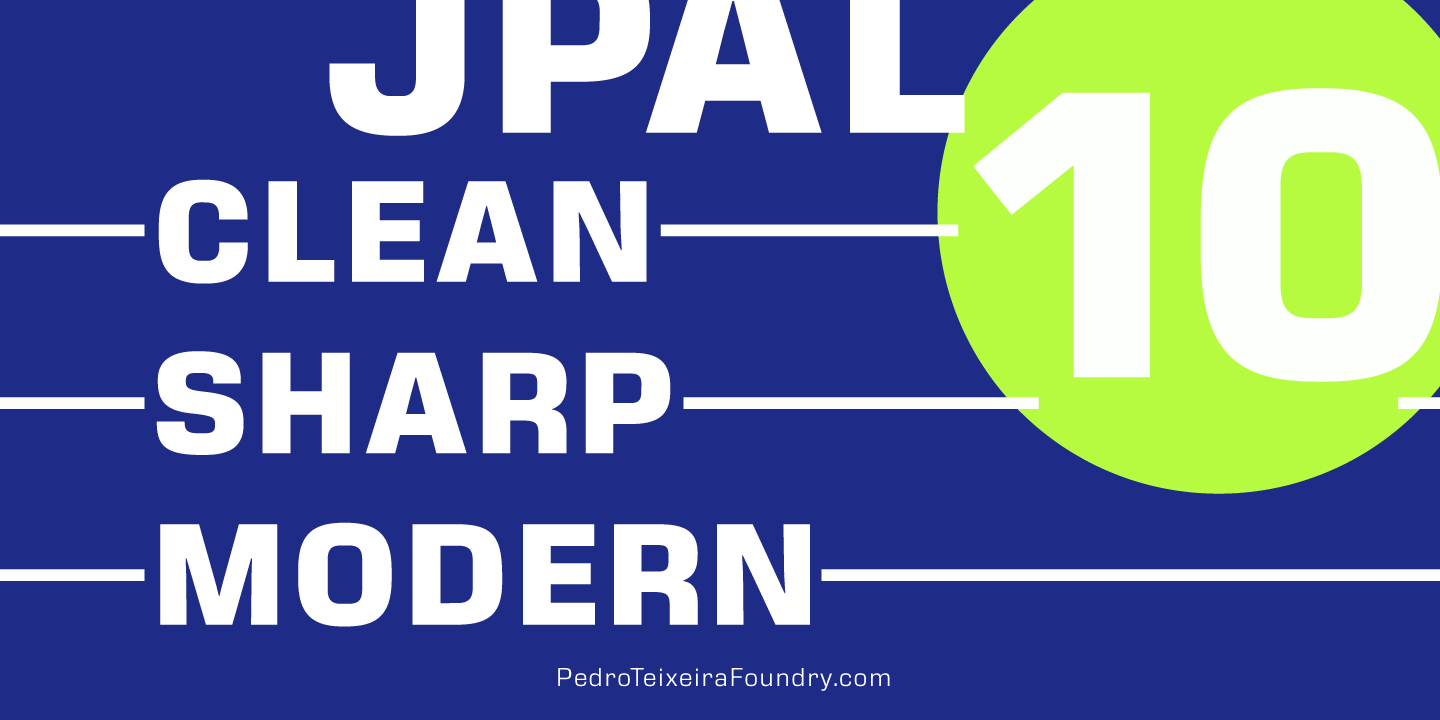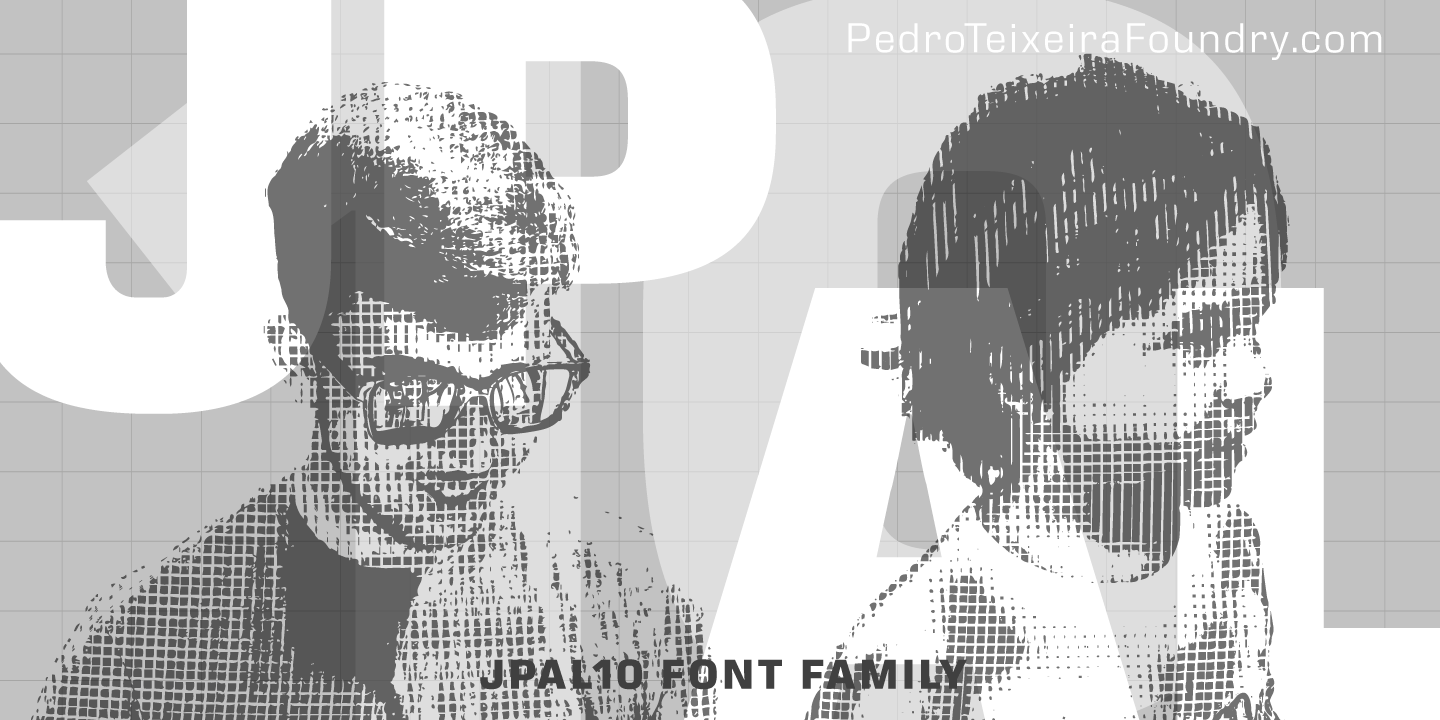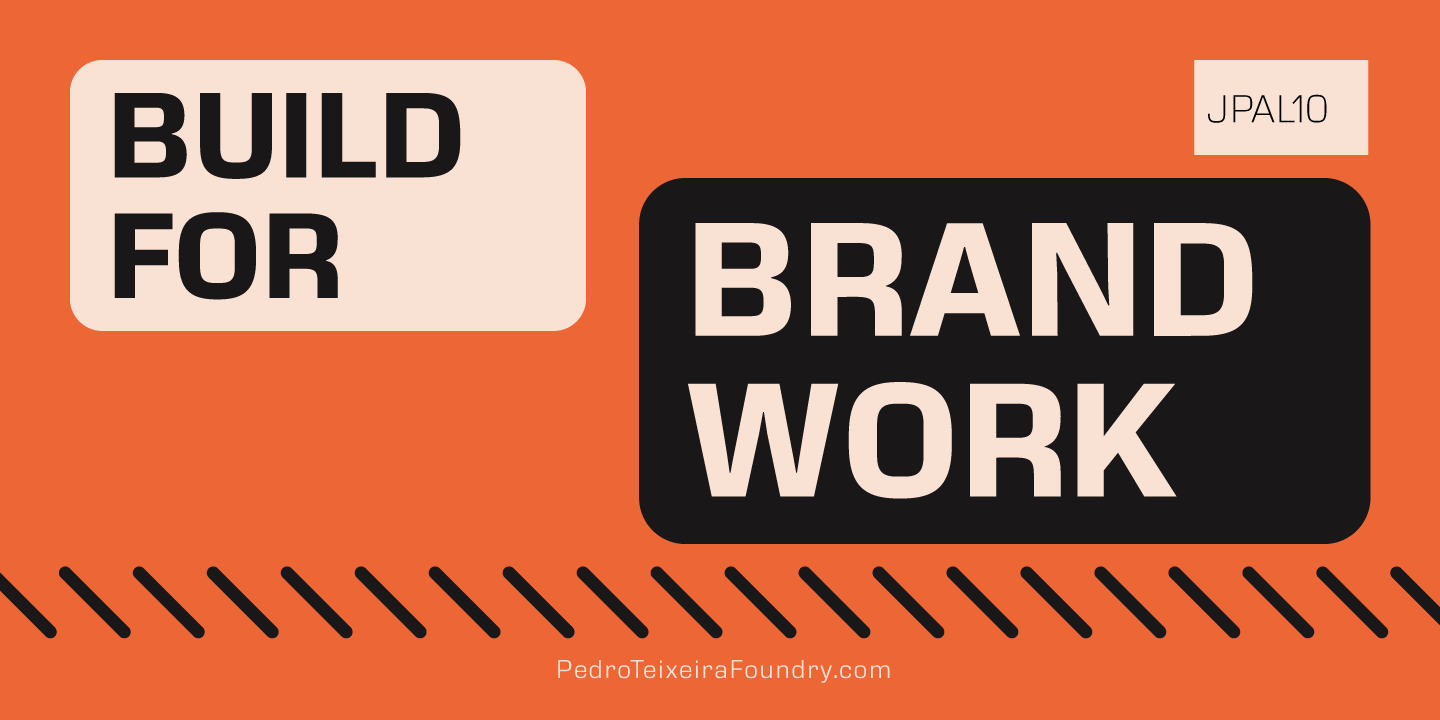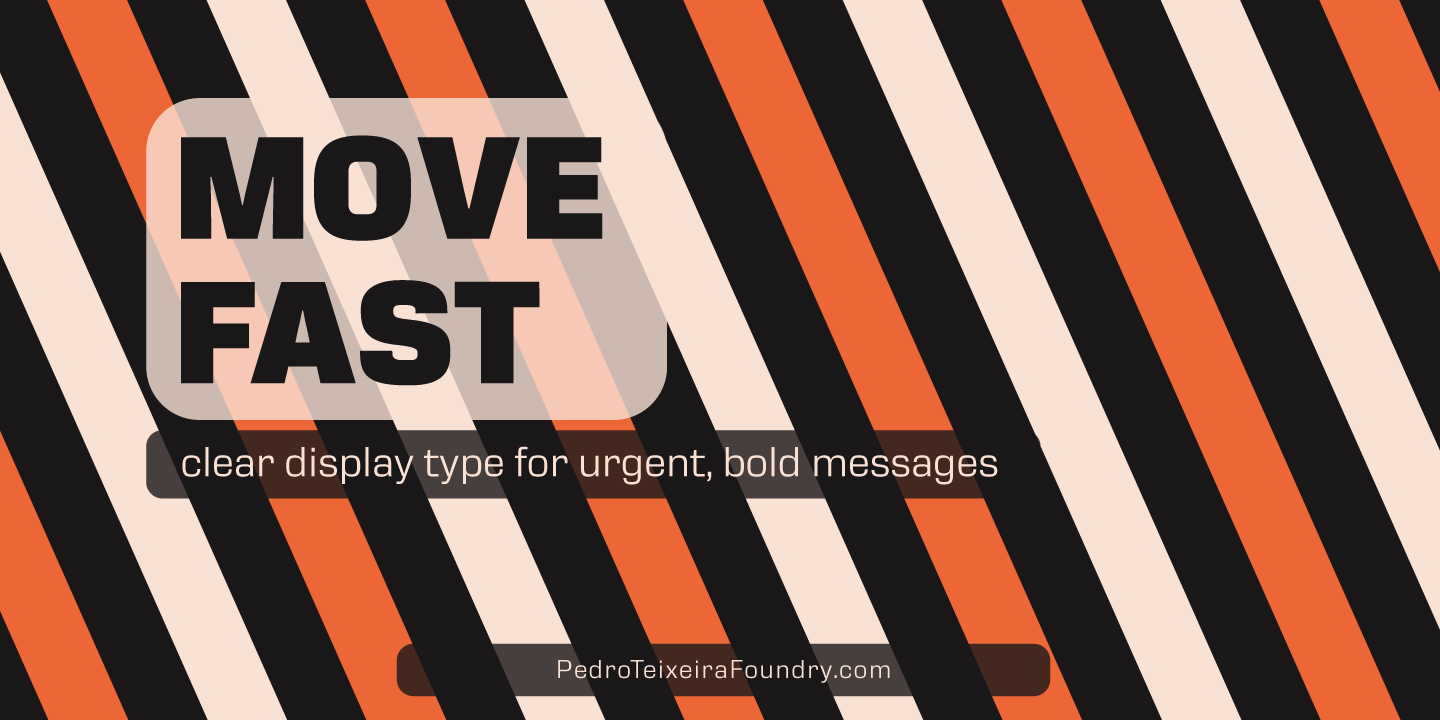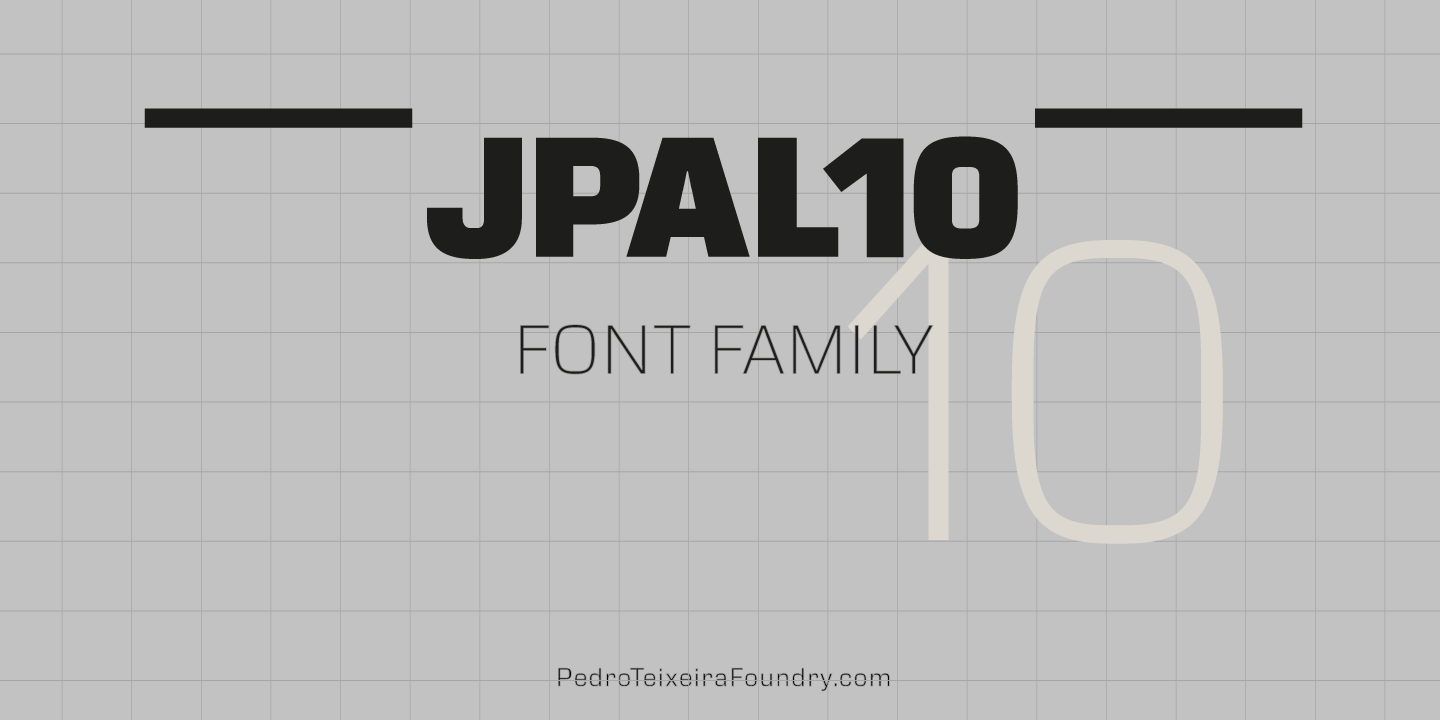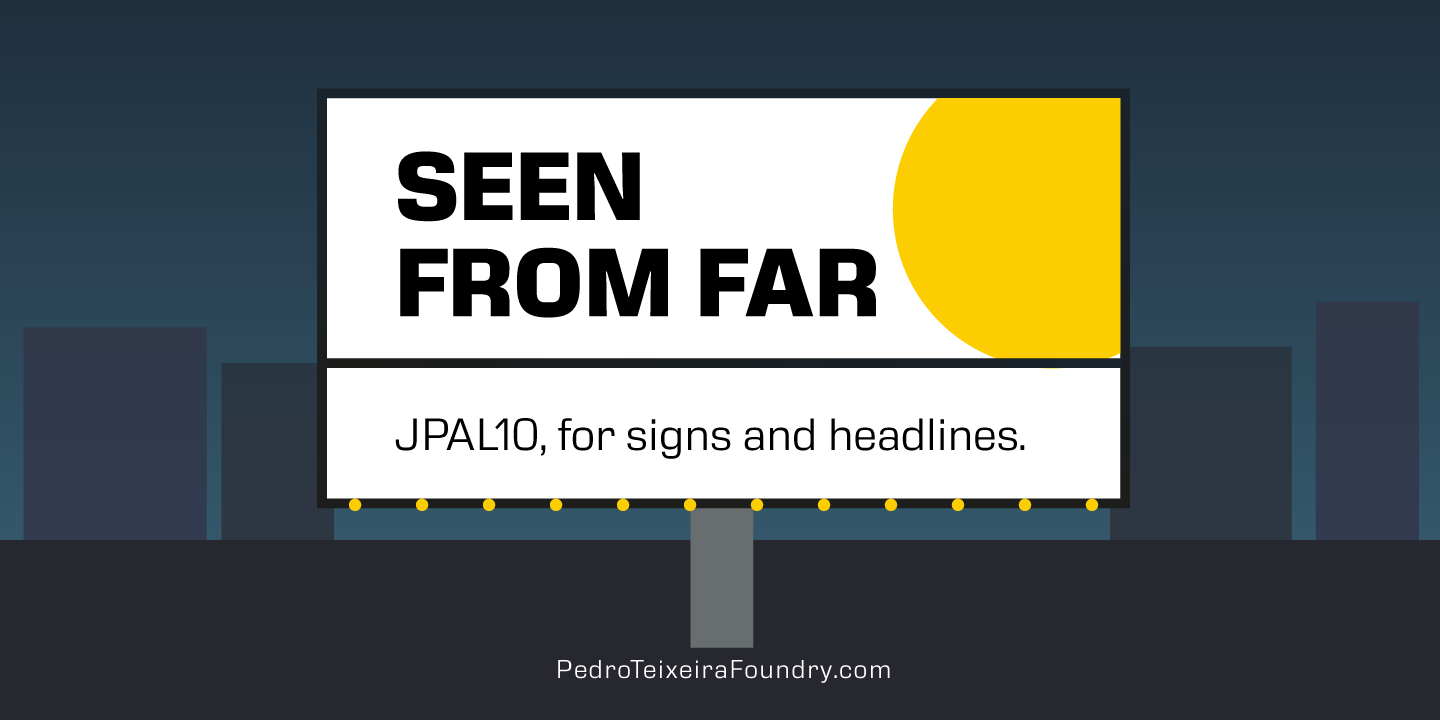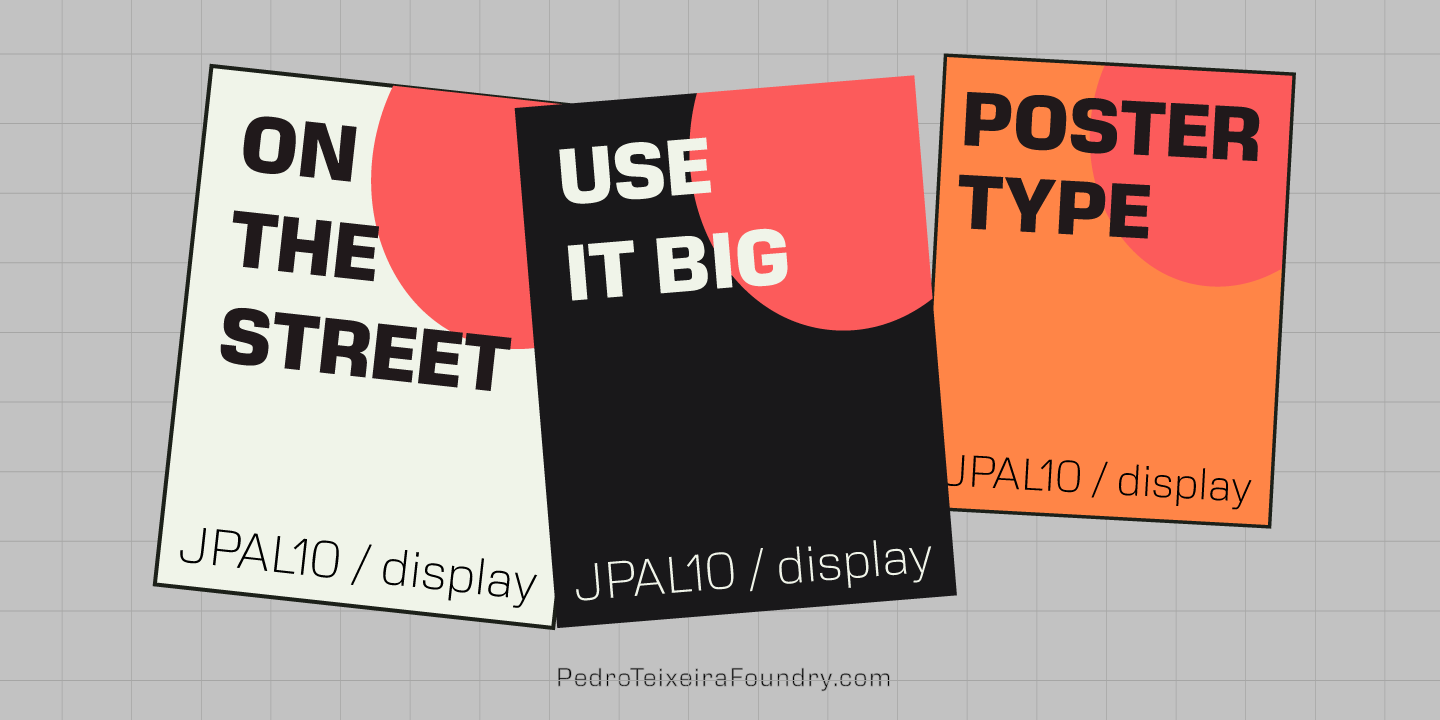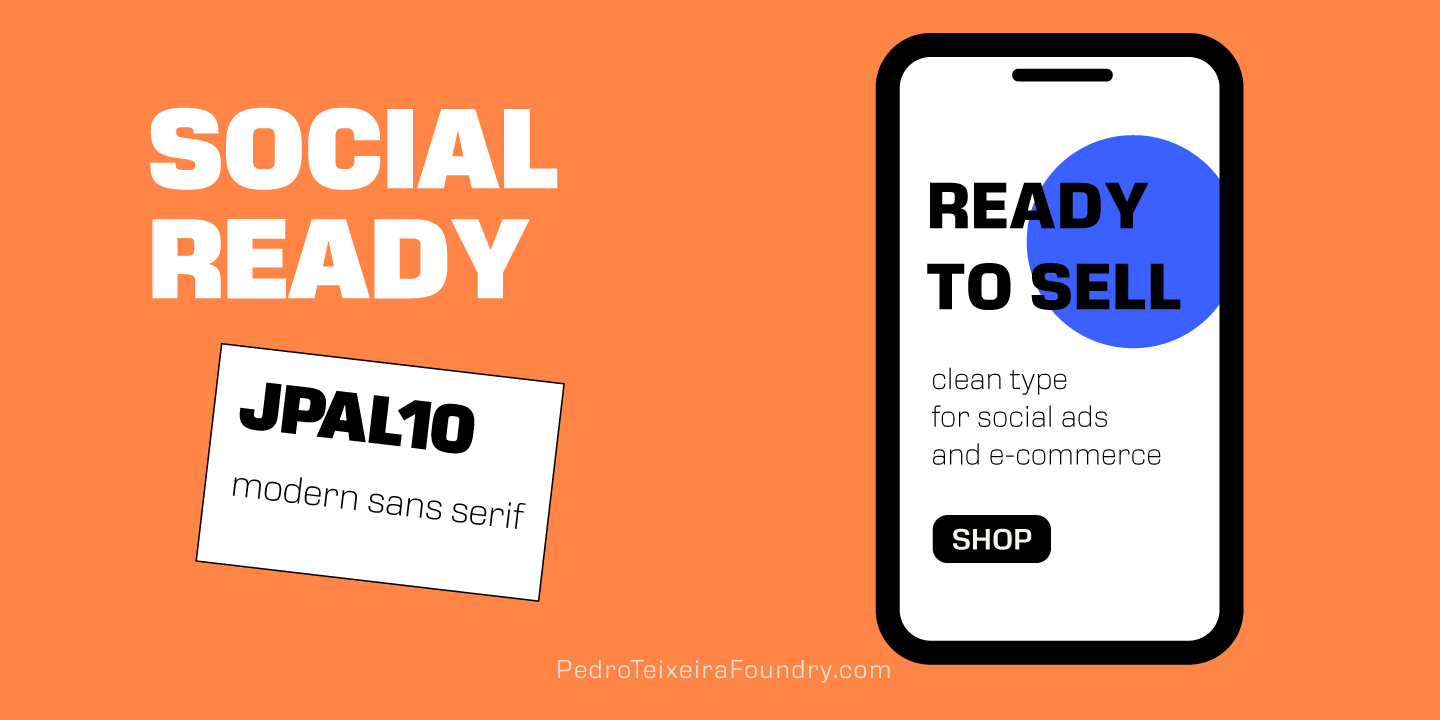
JPAL10 Font Family
The JPAL10 font family is a clean, modern sans serif designed for creators who need a versatile and visually confident type system. Built with a contemporary structure, refined curves, and strong readability, the JPAL10 font family performs beautifully across branding, editorial layouts, posters, packaging, digital campaigns, social media graphics, and presentation design.
If you are looking for a modern sans serif that feels professional, minimal, and highly usable, the JPAL10 font family is a strong choice. It delivers crisp shapes at large sizes while still feeling controlled and balanced in short text blocks, making it suitable for both creative and commercial projects.
- Light
- Regular
- Medium
- Semi Bold
- Bold
- Extra Bold
- Black
Design Personality
The JPAL10 font family has a modern sans serif personality that feels clean, direct, and visually current. The lighter weights bring elegance and open space, while the heavier weights create impact for titles, logos, and bold graphic compositions. This balance makes the family useful for designers who want typography that can shift from refined to assertive without changing visual language.
Because the forms are neat and contemporary, the JPAL10 font family works especially well when you want a layout to feel organized, fresh, and intentional. It can support minimalist branding just as easily as louder poster compositions, which gives it strong creative flexibility.
Why Choose JPAL10
The JPAL10 font family was built for visual impact without losing simplicity. Its structure feels sharp and controlled, which helps your layouts look polished and cohesive. The lighter cuts can be used for elegant headlines and spacious compositions, while the heavier cuts add energy for covers, packaging, merchandise, and promotional artwork.
Because the JPAL10 font family includes multiple weights, it is easy to create hierarchy inside one project. Use Light or Regular for refined compositions, Medium or Semi Bold for subtitles and interface elements, and Bold through Black for posters, branding, and statement typography. This makes the family practical for designers who want consistency across print and digital work.
Best Uses
The JPAL10 font family is especially well suited for:
- Brand identity and logo concepts
- Poster and flyer design
- Editorial headlines and magazine layouts
- Packaging and product branding
- Album art, covers, and promotional graphics
- Social media visuals and digital campaigns
- Creative portfolios and presentation decks
If your project needs a modern sans serif with a clean personality and strong visual consistency, the JPAL10 font family is an effective option for both expressive and commercial design work.